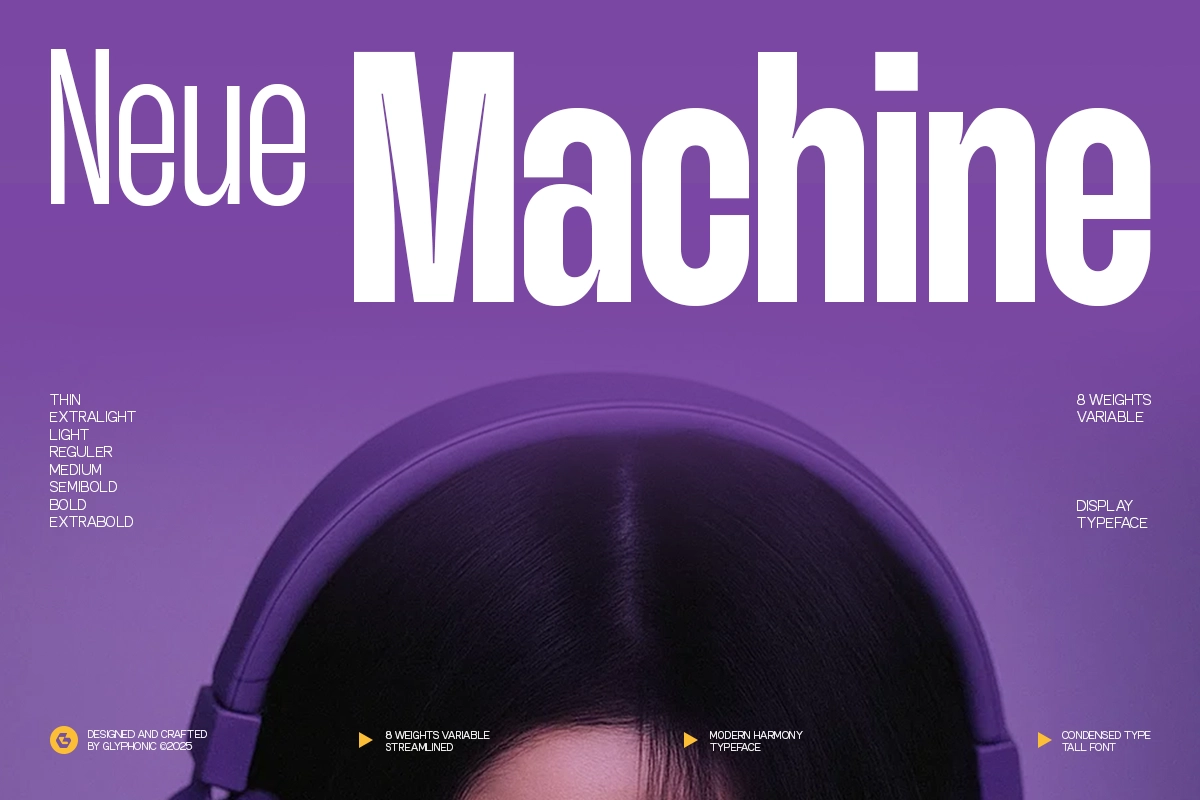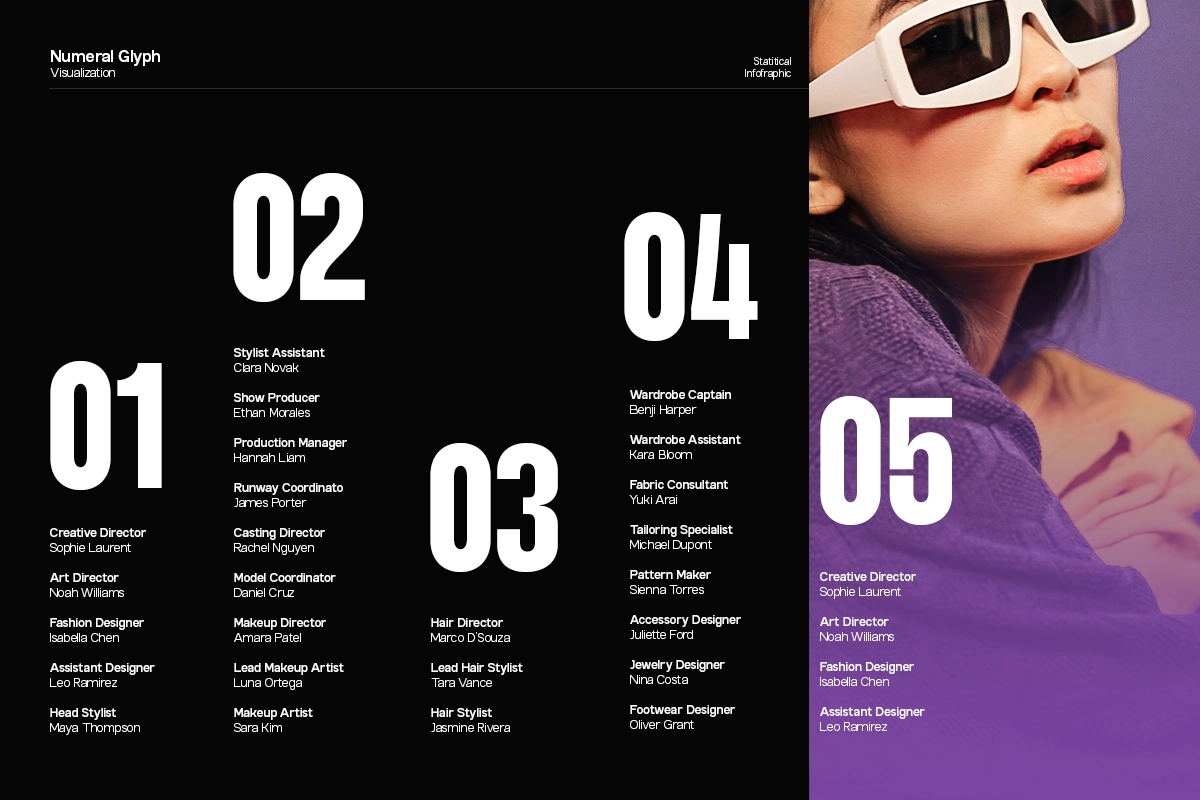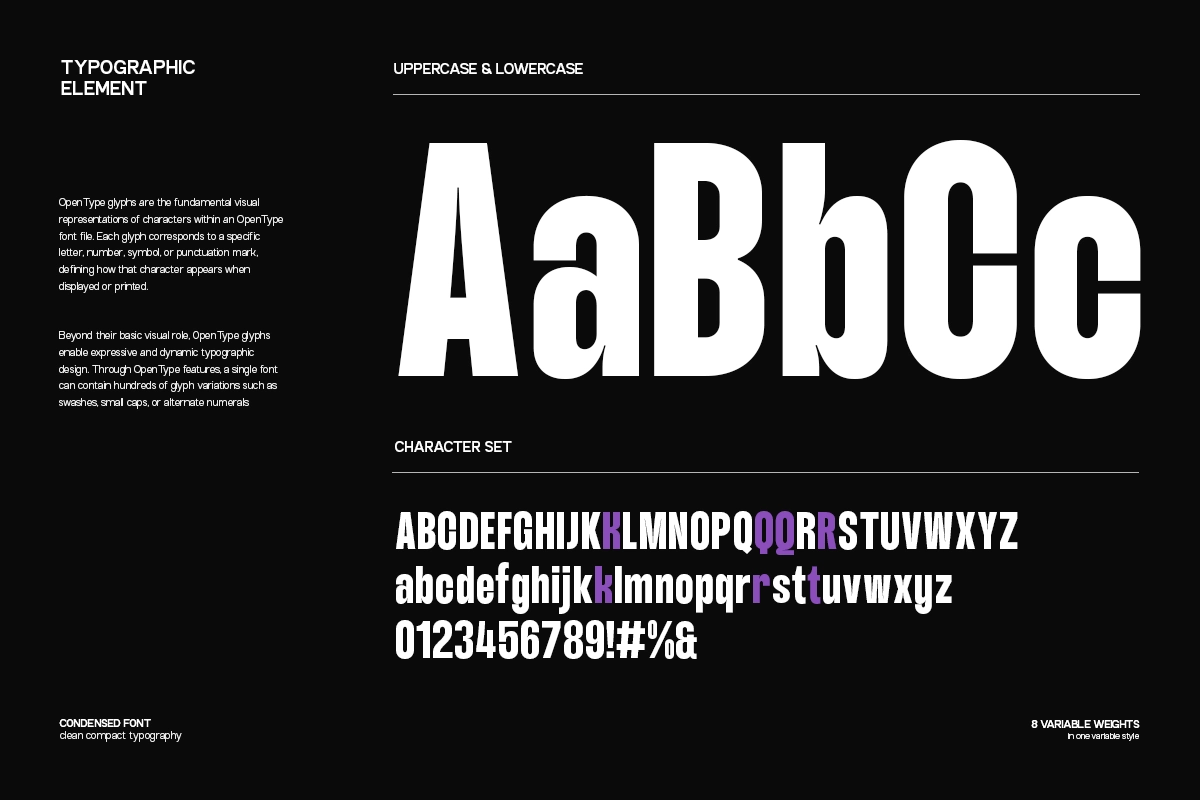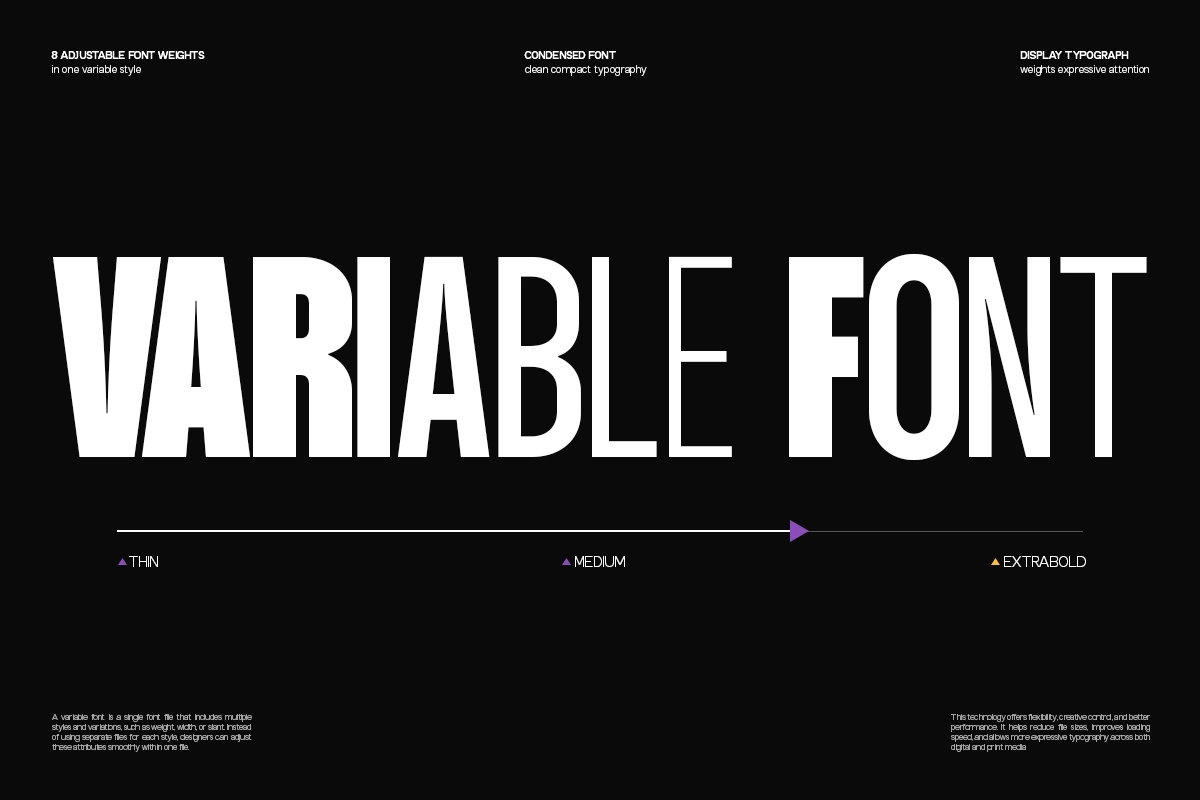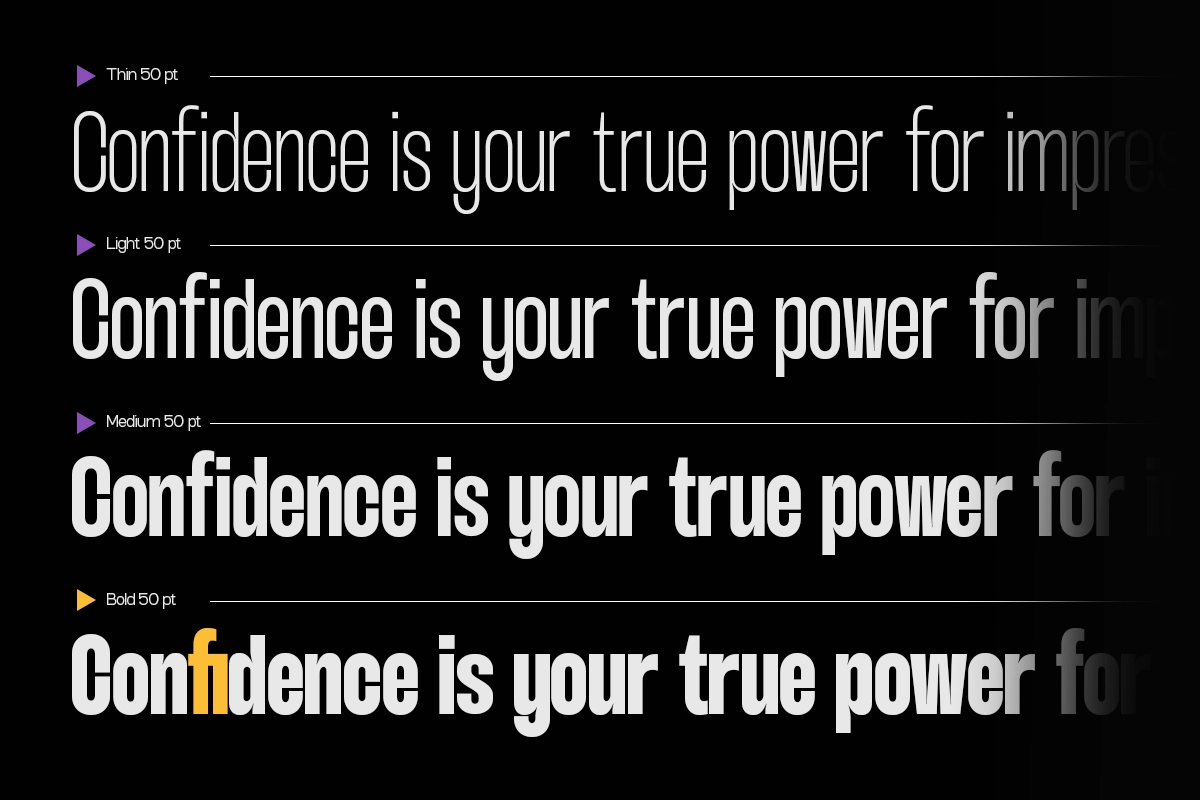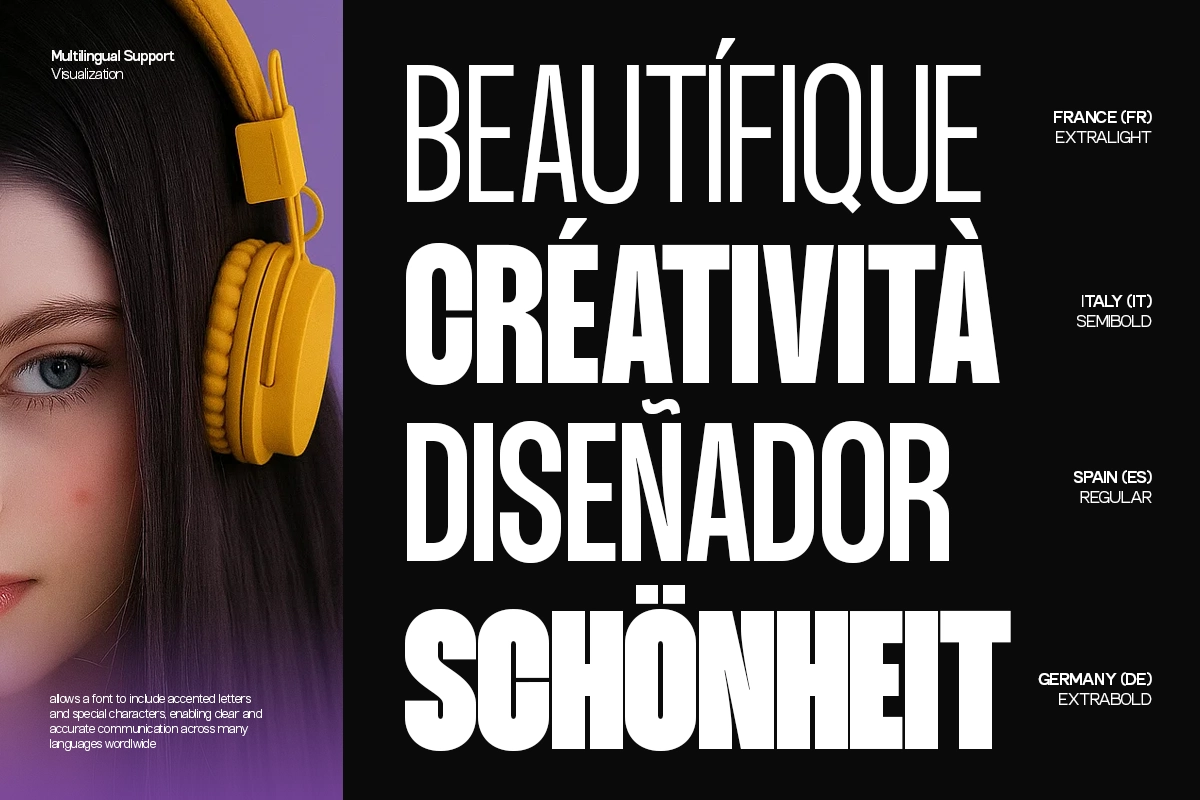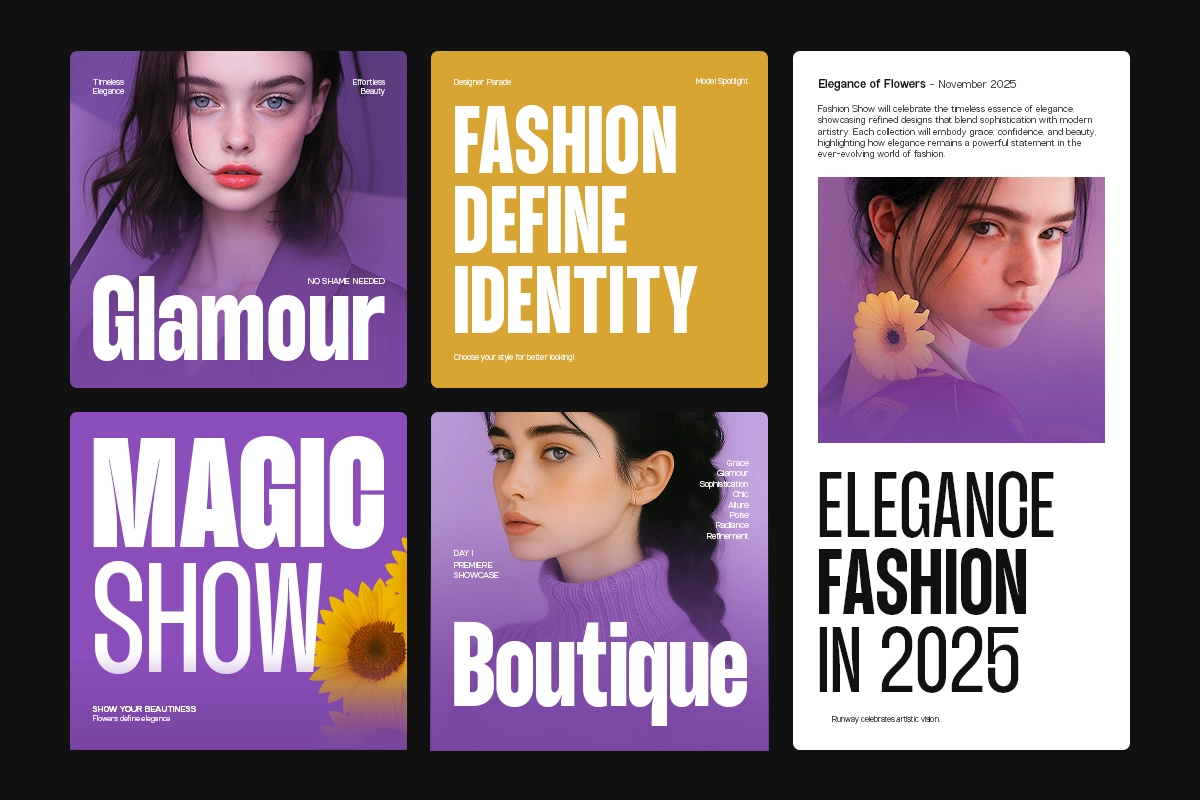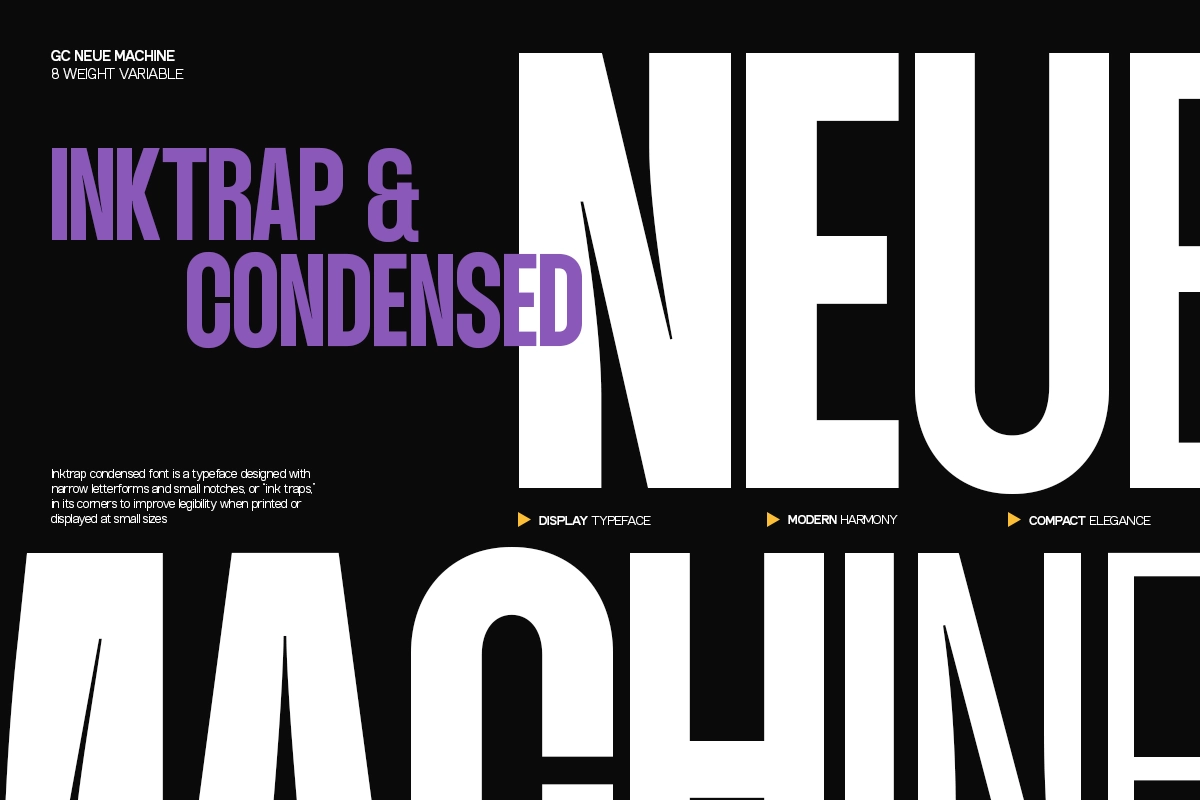
GC Neue Machine - Variable Sans
GC Neue Machine — Modern Streamlined Precision is a condensed sans serif typeface built for versatility, balance, and impact. With tall proportions and clean geometry, it embodies a refined yet powerful visual rhythm that stands out across digital and print media. Designed to deliver clarity and modern elegance, it’s ideal for bold headlines, tech-inspired identities, editorial layouts, and futuristic branding concepts.
Balanced detailing and variable flexibility make GC Neue Machine adaptable yet distinctive—perfect for designers who seek both structure and sophistication in their typography.
• 8 Weights + Variable Version
• Numbers & Punctuation
• Condensed Modern Structure
• Multilingual Support (170+ Languages)
Bring precision, style, and modern harmony to your design with GC Neue Machine.